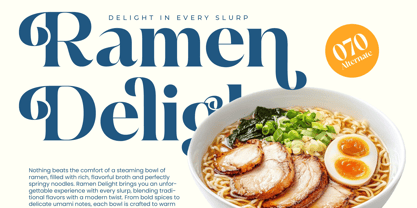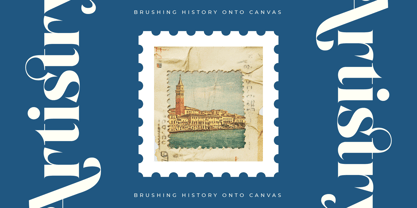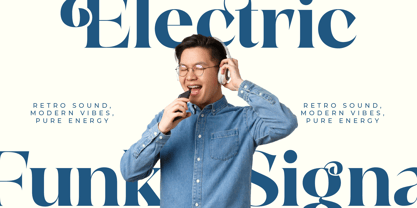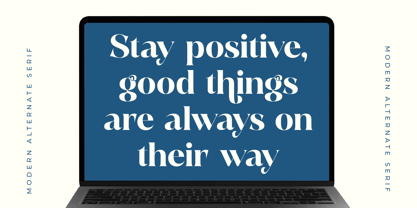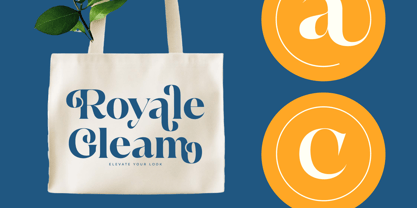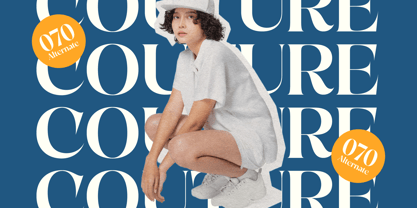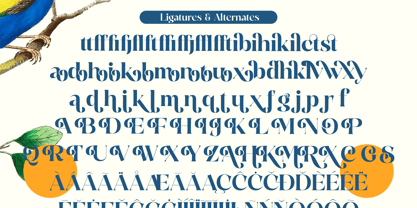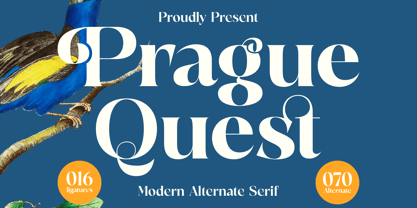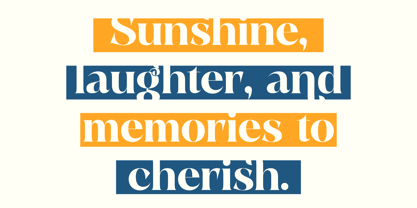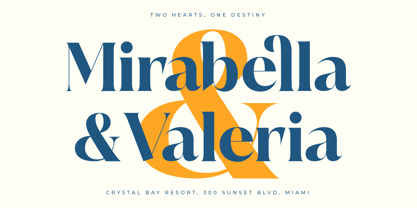
Prague Quest
von Timelesstype Studio
Die Schriftfamilie Prague Quest wurde von Heru Utama Putra entworfen und von Timelesstype Studio veröffentlicht. Prague Quest enthält 2 Stile und Familienpaketoptionen.
Prague Quest - Modern Alternate Serif , from Timelesstype , Suitable for any projects such as: logos, branding projects, homeware designs, product packaging, mugs, quotes, posters, shopping bags, t-shirts, book covers, name card, invitation cards, greeting cards, label, photography, watermark, special events, and all your other luxury and beautiful projects that need a Luxury Serif taste.